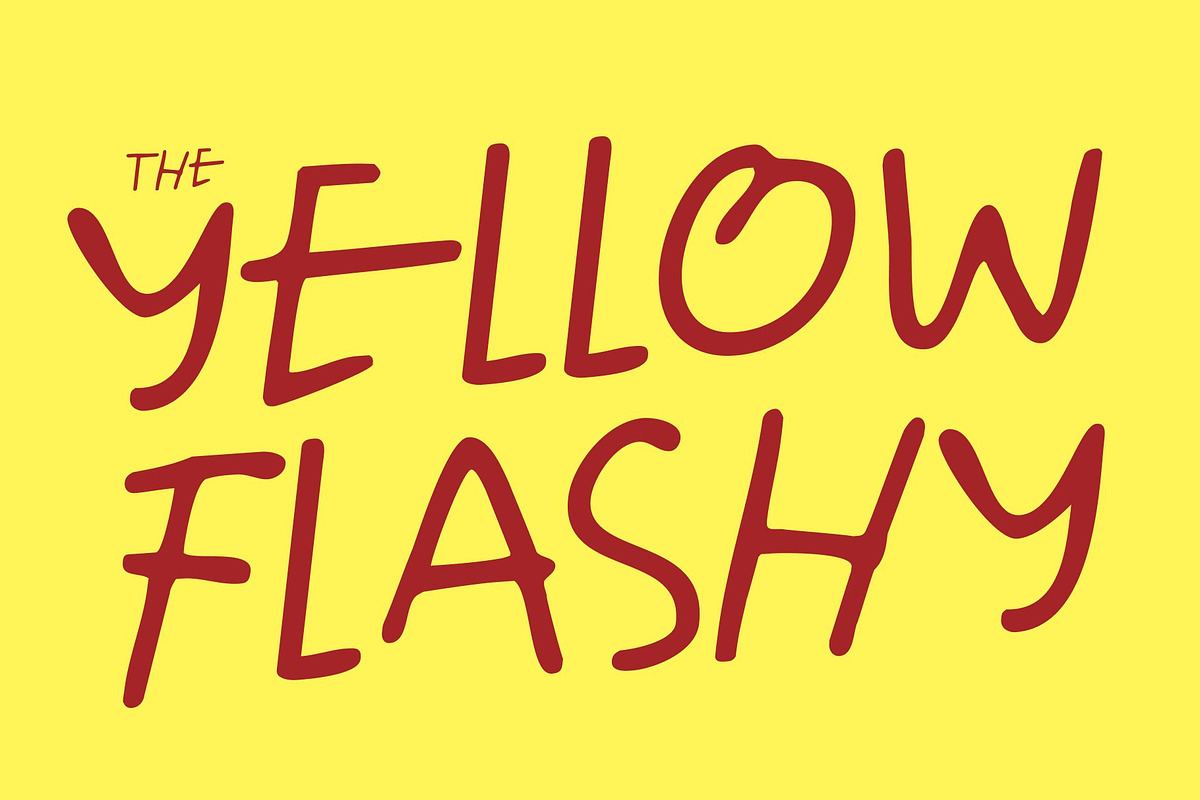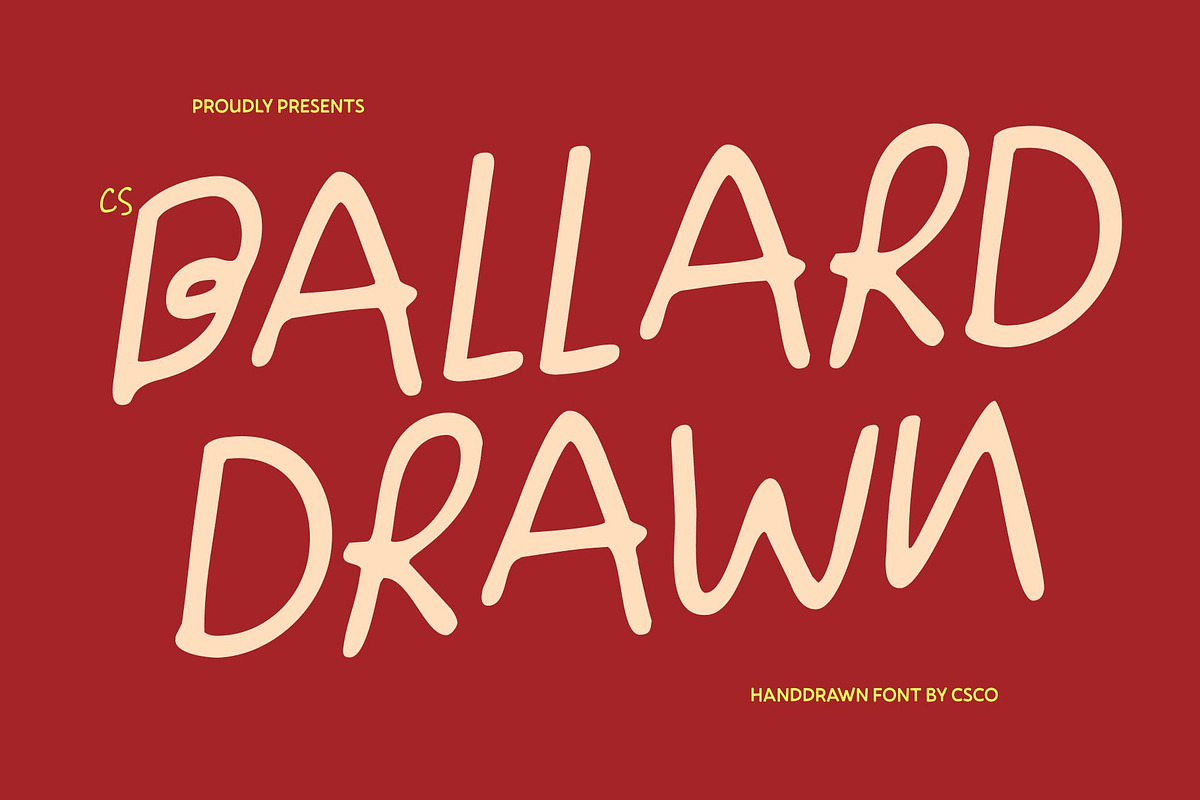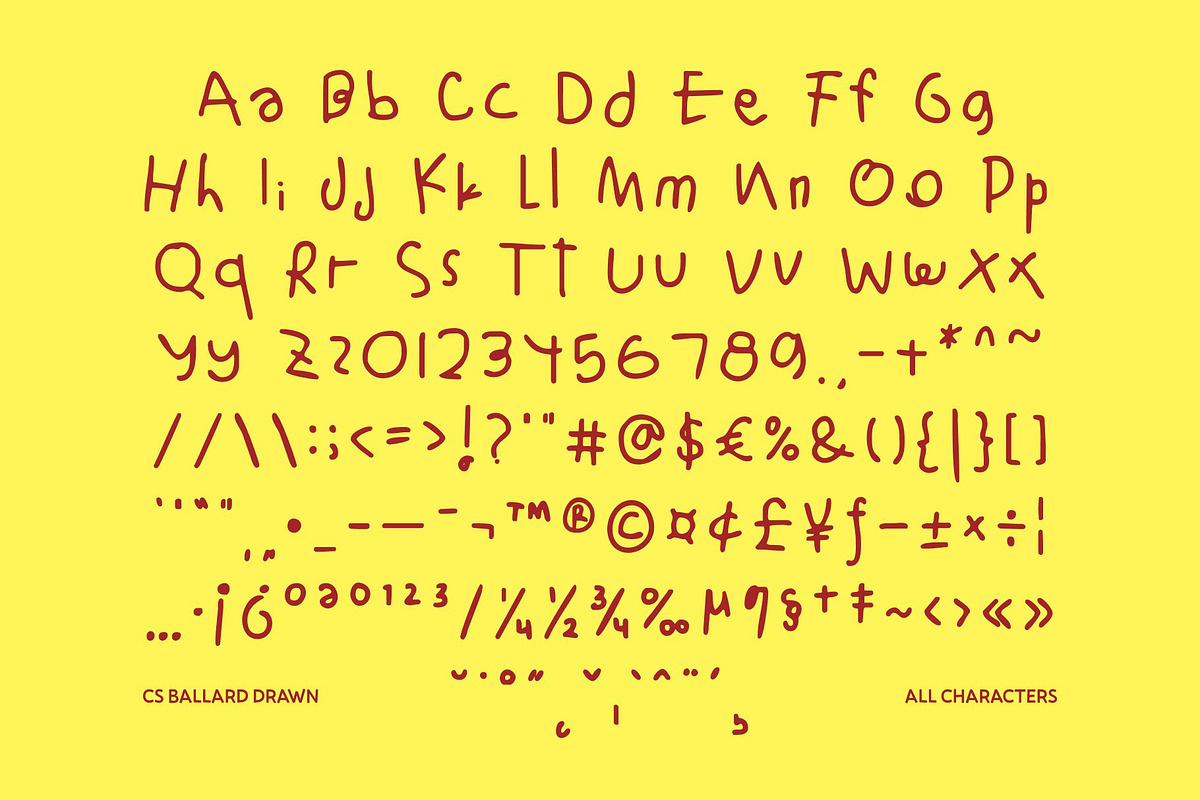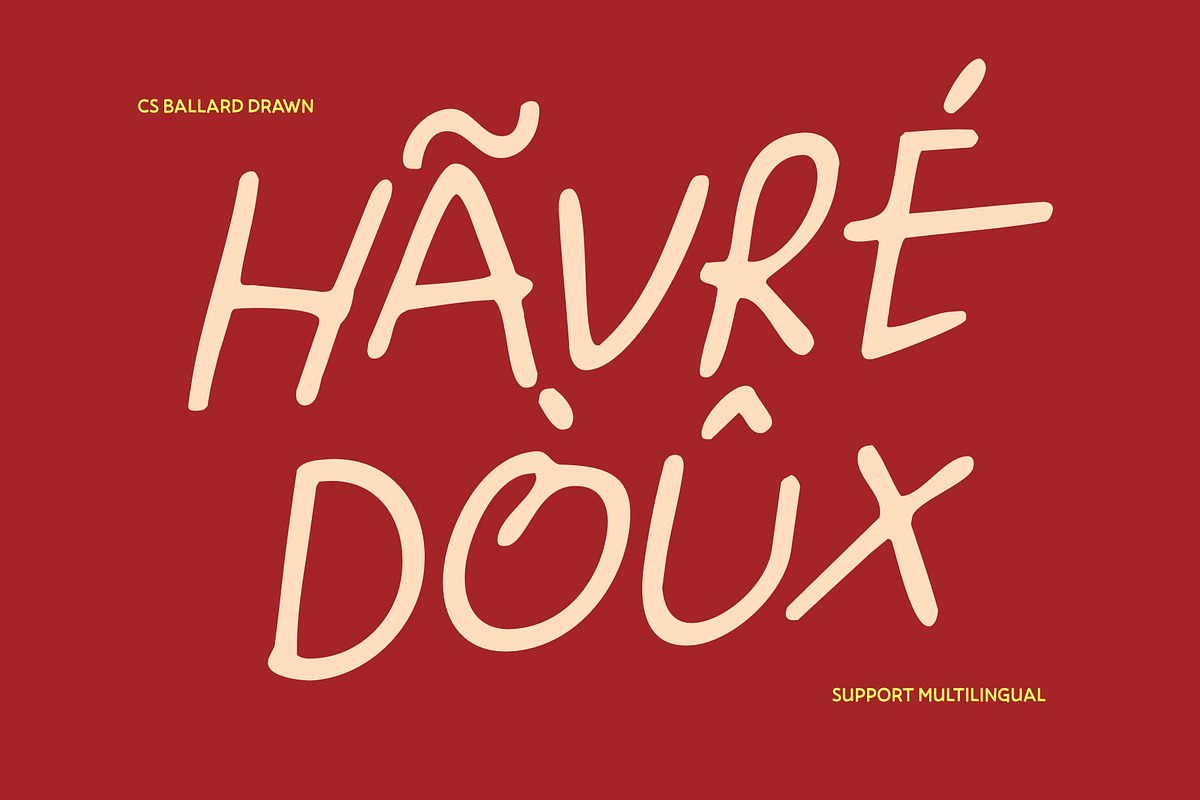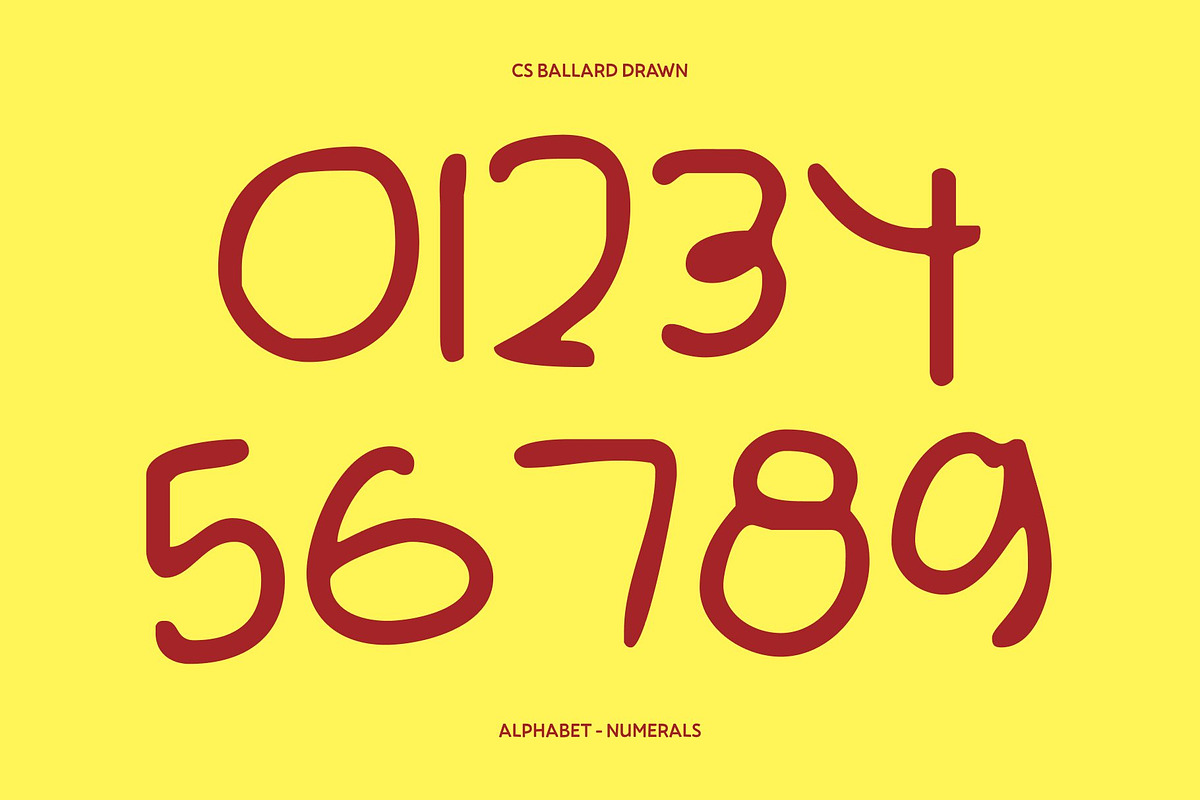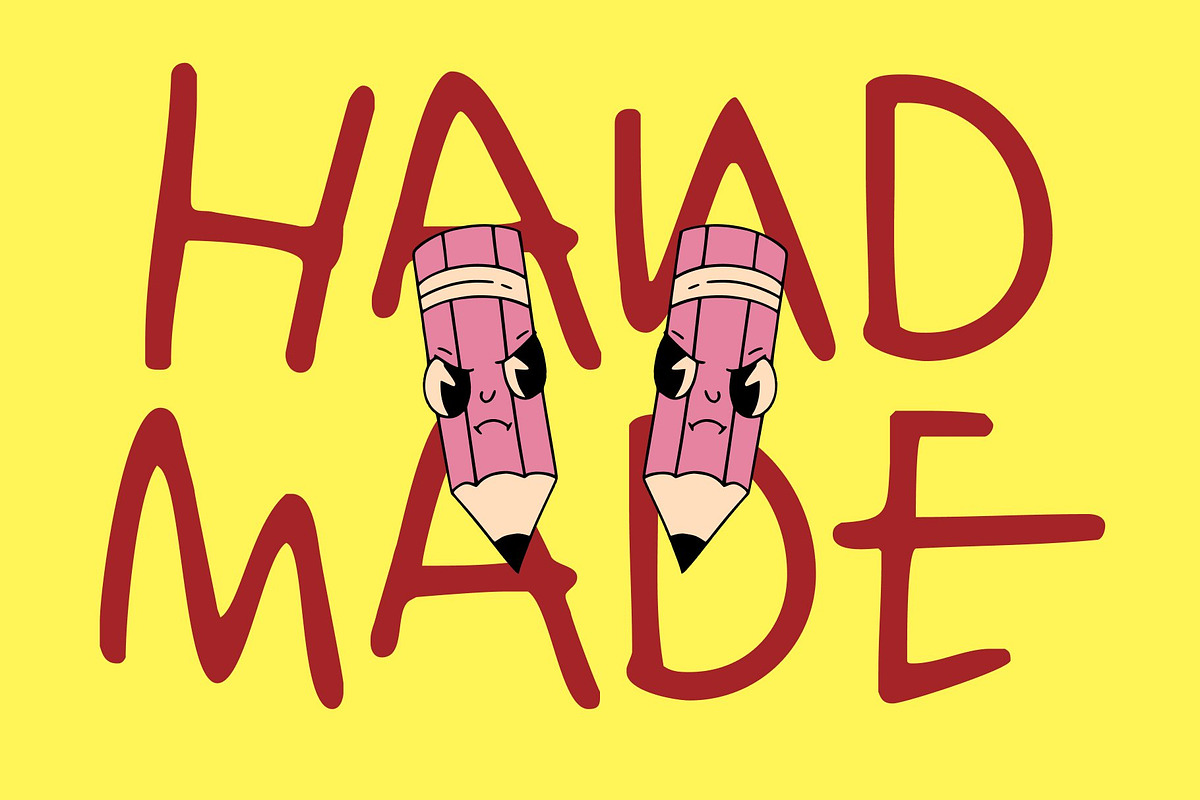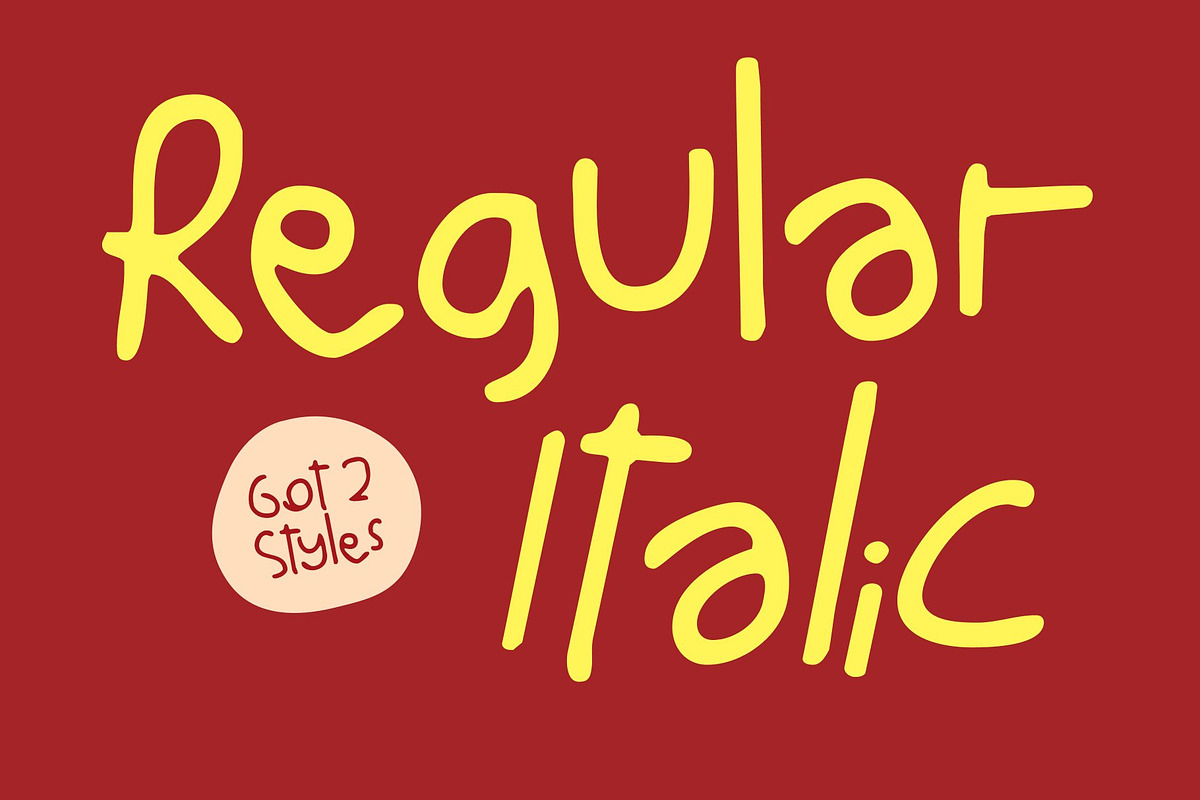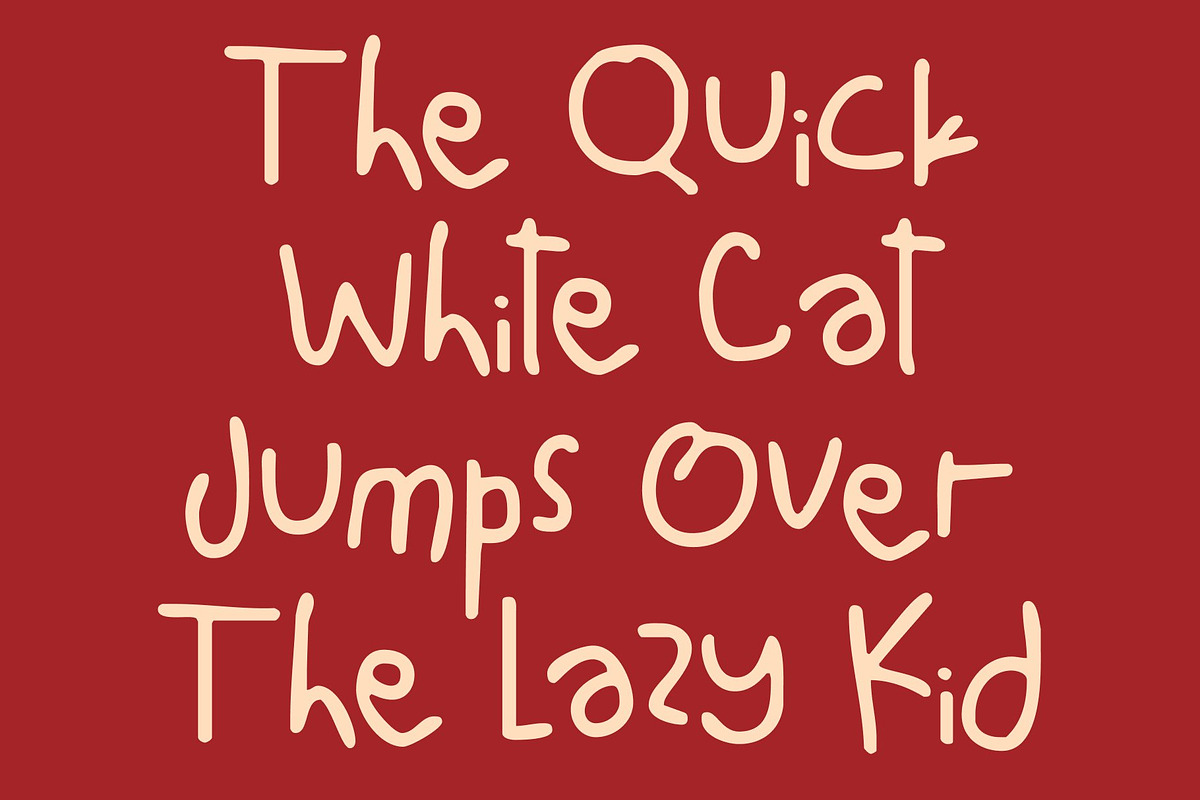
CS Ballard Drawn
CS Ballard Drawn – The Beauty of Chaos in Handwritten Form
Messy Handwritten Font with Playful Energy This is a gritty yet charming messy handwritten font that celebrates imperfection, spontaneity, and creative freedom. Designed to look irregular and freely scribbled, it captures the raw, expressive spirit of natural handwriting. Each letter feels alive full of quirky motion and unexpected rhythm bringing an energetic, fun-filled tone to any design.
Irregular Strokes with Authentic Character With uneven lines, loose curves, and an intentionally unpolished structure, this font feels genuinely hand-crafted. The drawn texture enhances its organic look, making every character feel personal and spontaneous, as if sketched in a moment of pure creativity. This imperfect rhythm adds authenticity and warmth that digital precision simply can’t replicate.
Playful, Expressive, and Full of Joy The messy style radiates friendliness and creativity, making the font approachable and youthful. Its casual, scribbled appearance works beautifully for designs that aim to feel fun, relaxed, and expressive rather than formal or rigid.
Perfect for Fun and Creative Projects Ideal for children’s illustrations, playful posters, handmade branding, DIY packaging, social media graphics, and creative merchandise, this font turns chaos into charm transforming every layout into a lively, expressive, and delightfully imperfect visual statement.
- CS Ballard Drawn Regular
- CS Ballard Drawn Italic